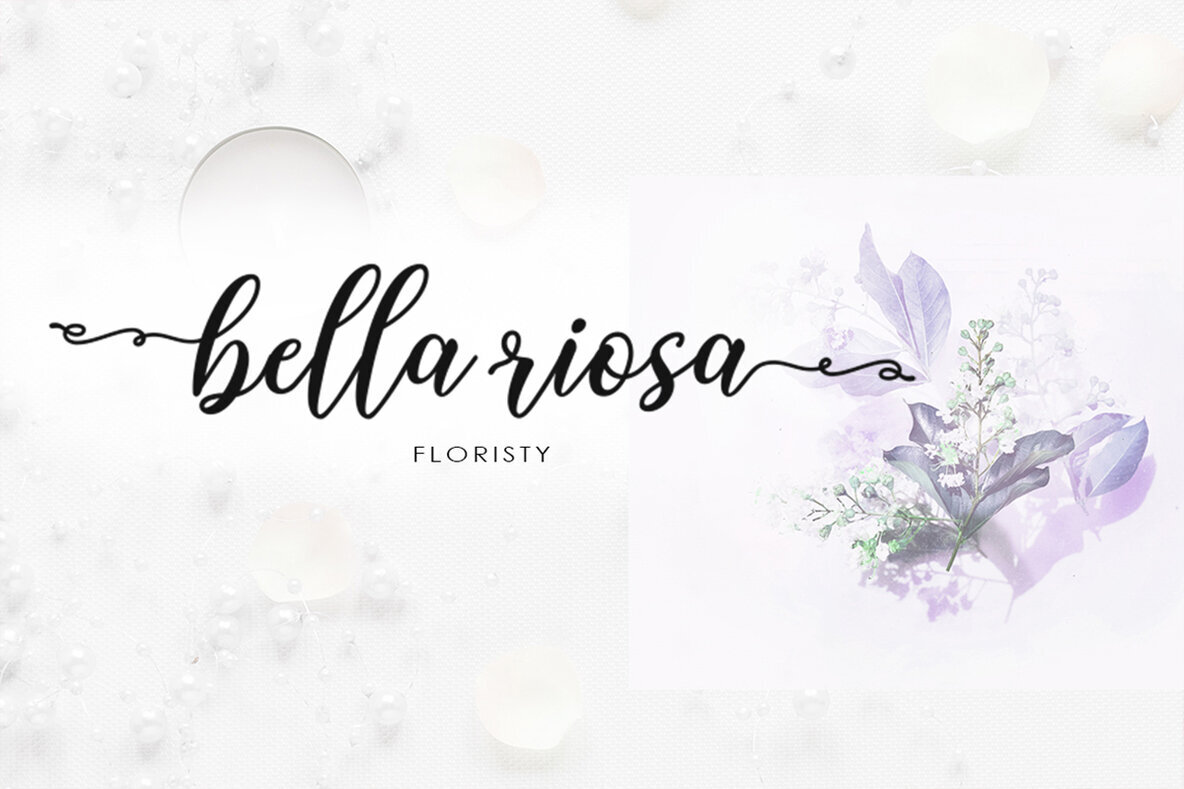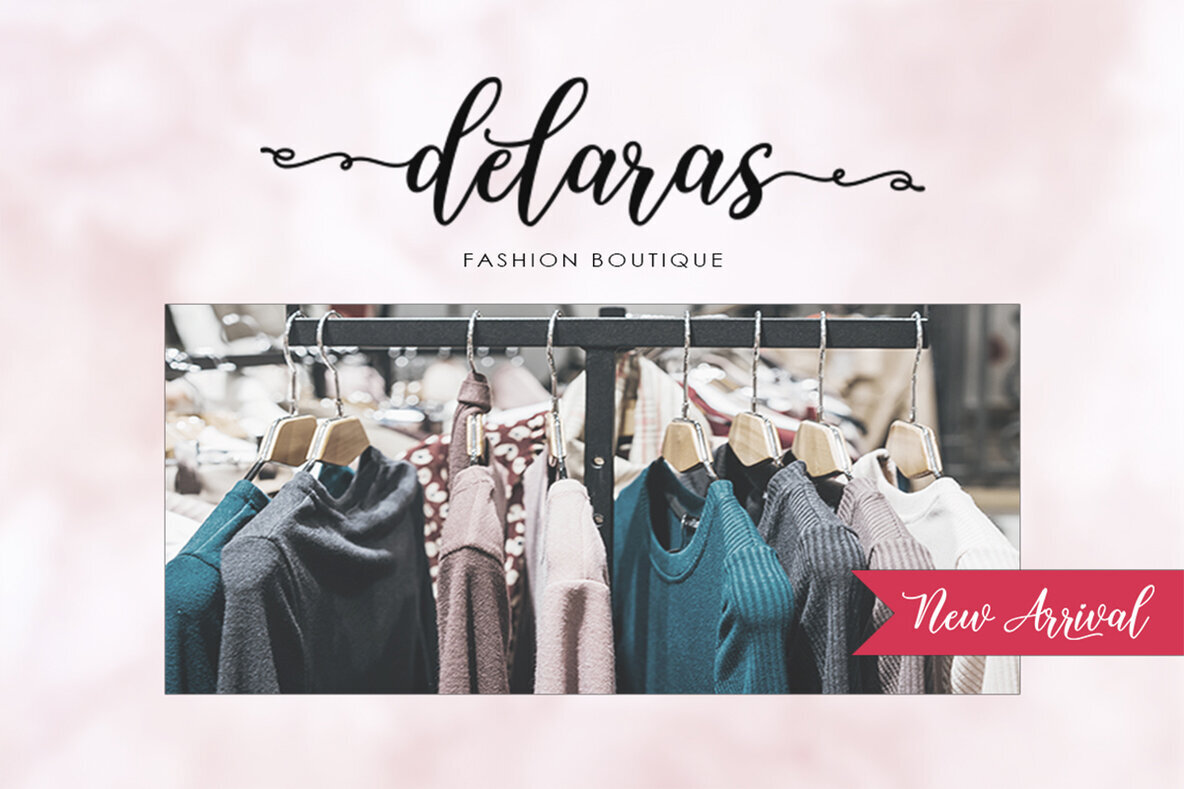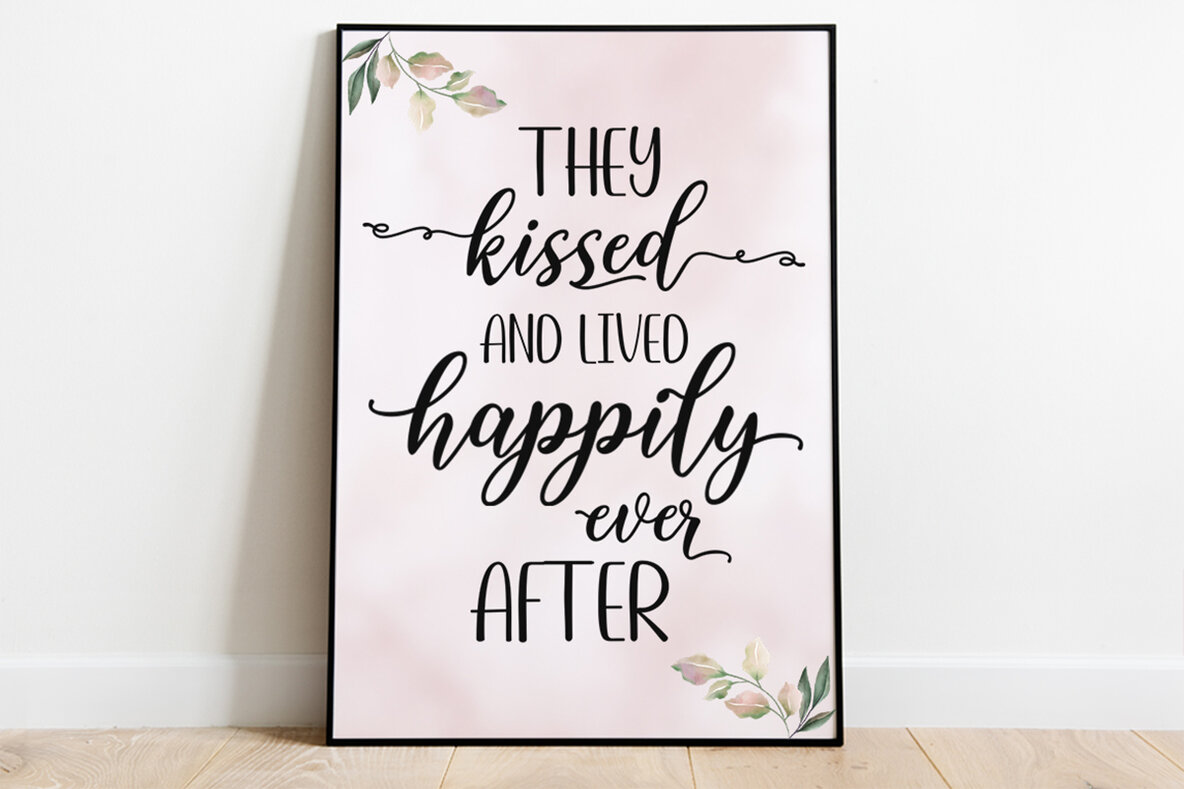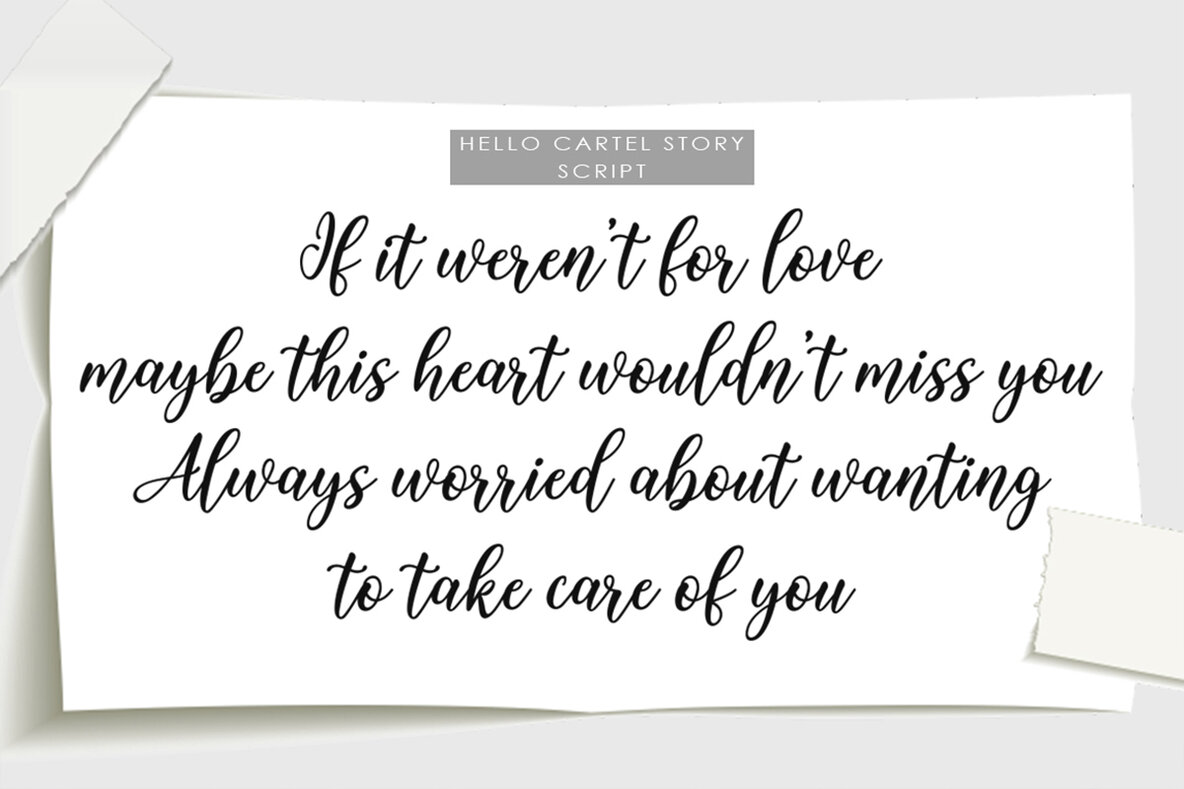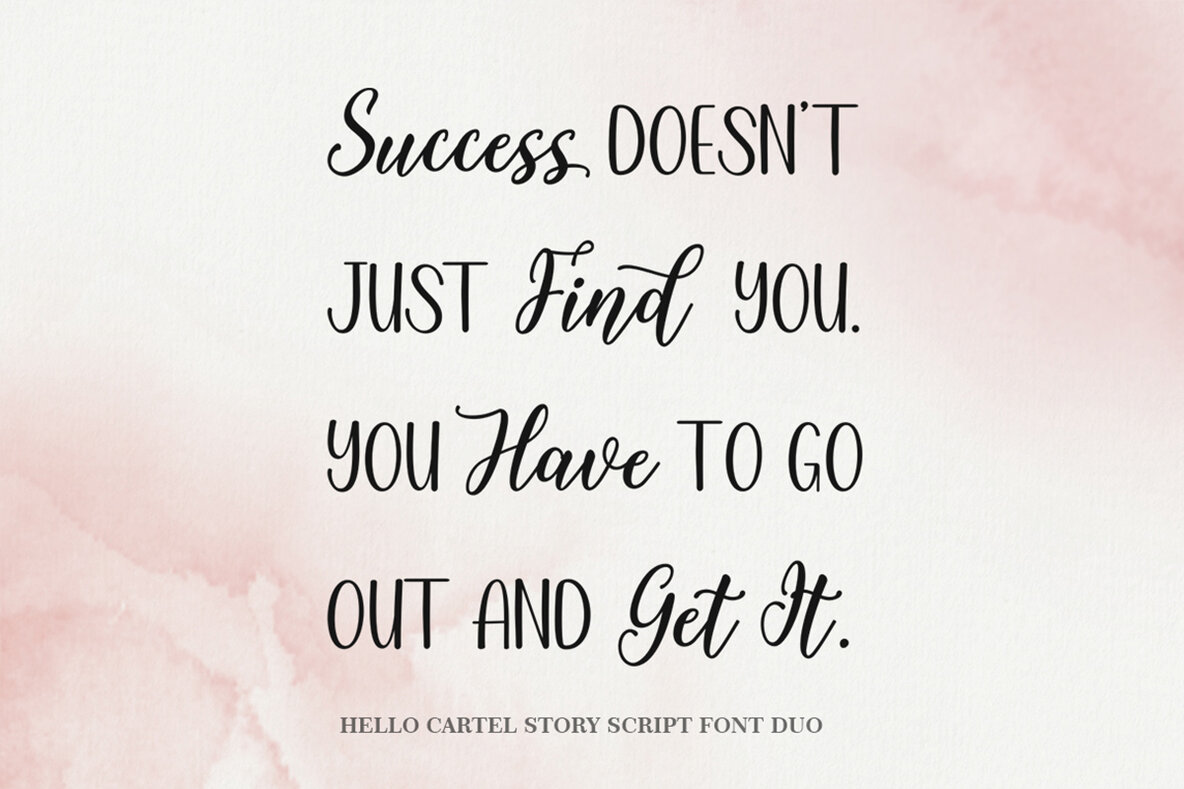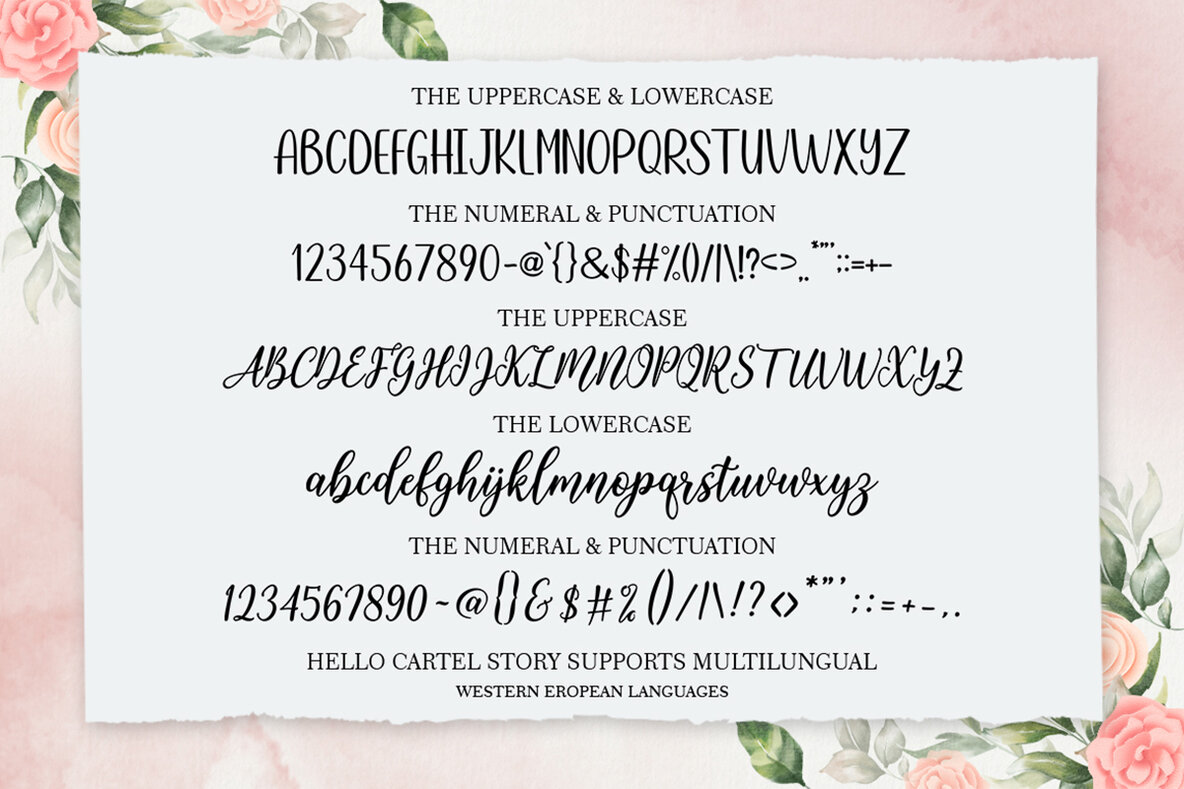
Hello Cartel Story Font
Hello Cartel Story Script Font Duo by Attract Studio offers an innovative take on contemporary script fonts. With its irregular baselines, this duo combines trendy elegance and a distinctly feminine style, making it a versatile choice for various creative projects. Features:Hello Cartel Story: Script Font Duo for Modern Designs